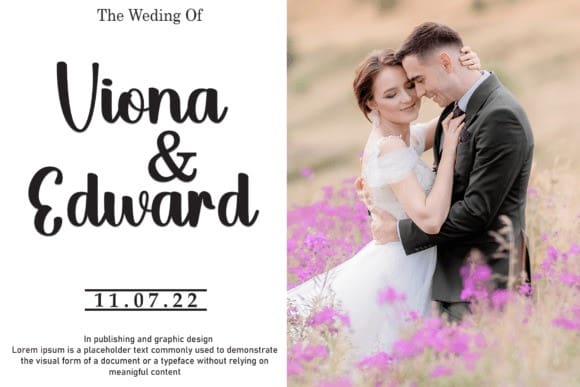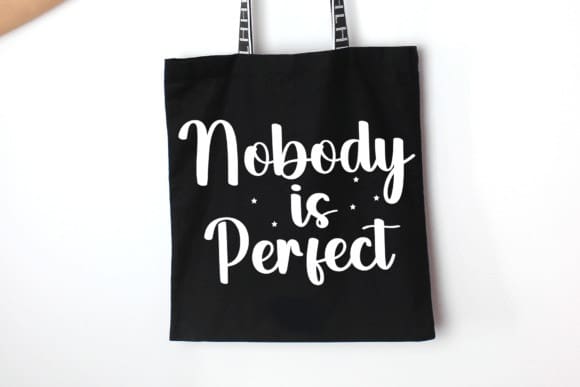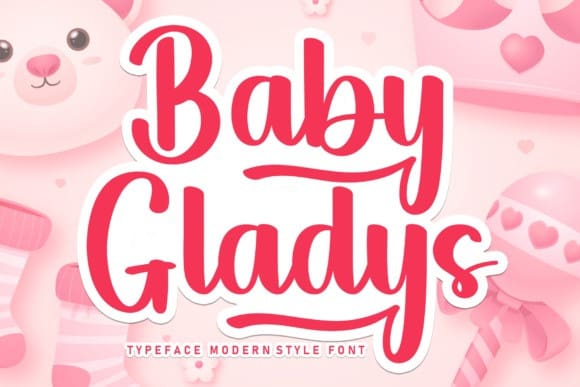
Baby Gladys Font
Baby Gladys Font is a magical script font carefully created with a touch of elegance. Whether you’re looking for fonts for Instagram or calligraphy scripts for DIY projects, this font will turn any creative idea into a true piece of art!